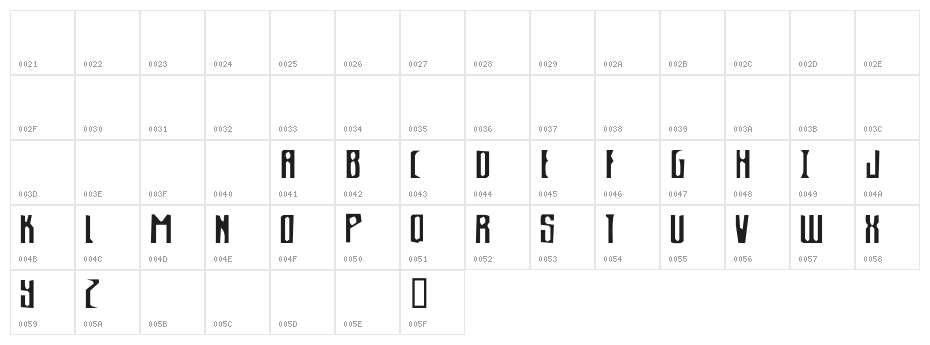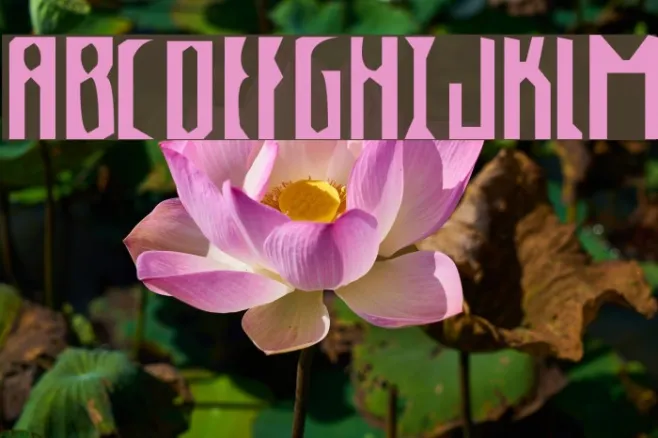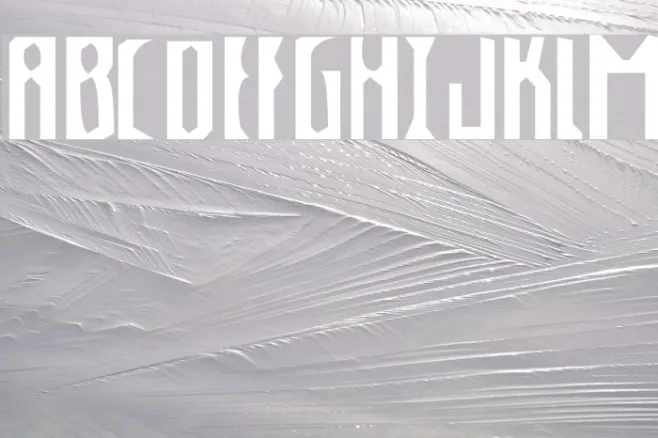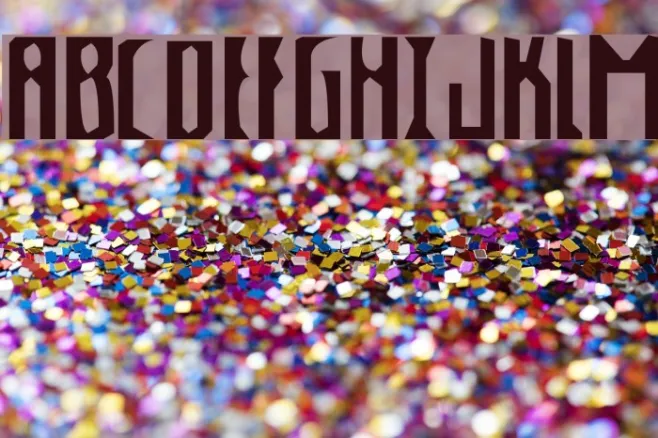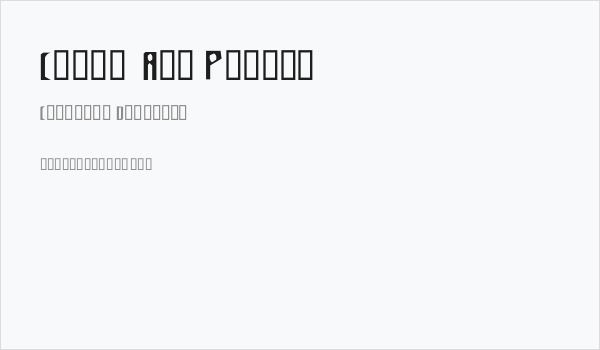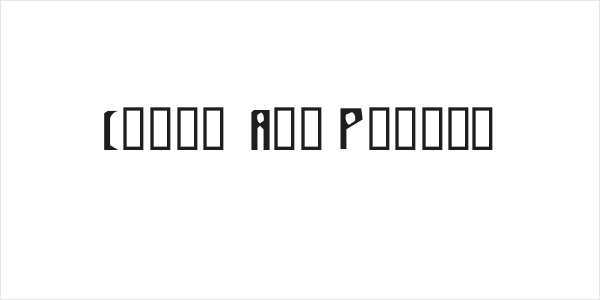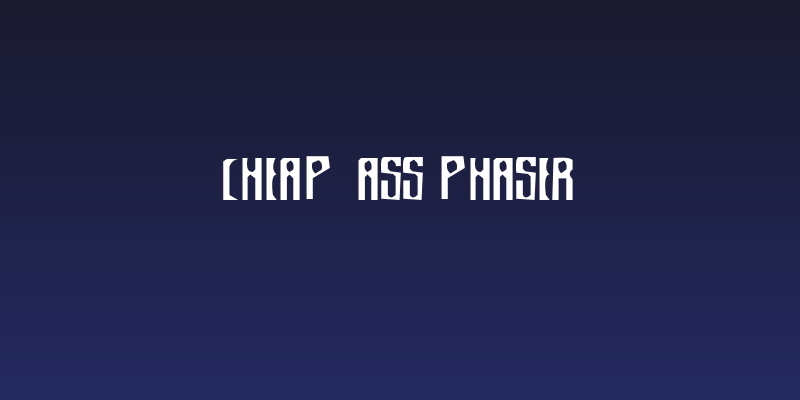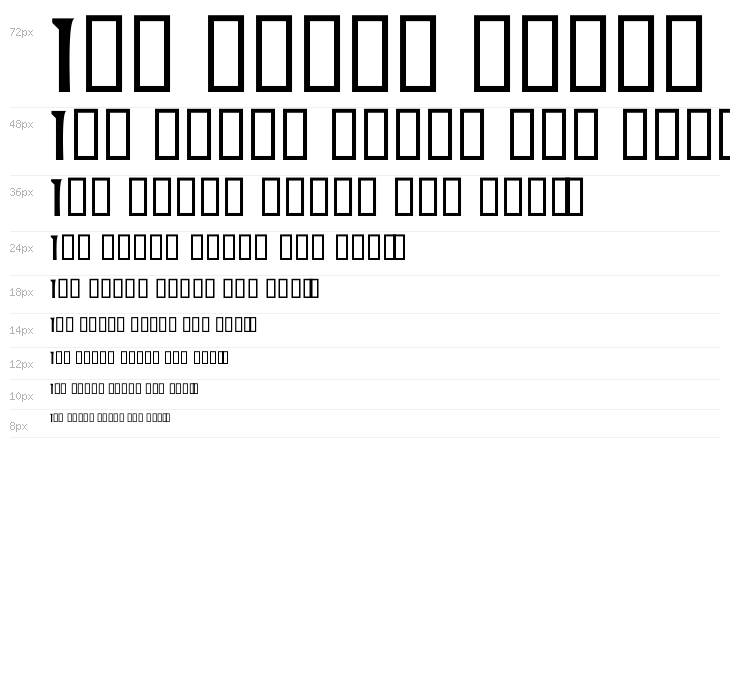
Cheap-Ass Phaser Font
Cheap-Ass Phaser Description
This font features a bold and striking design with sharp, angular edges and a futuristic aesthetic. The uppercase letters are characterized by their geometric shapes and strong vertical lines, creating a sense of movement and energy. The absence of lowercase letters and numbers emphasizes its decorative nature, making it ideal for attention-grabbing headlines and titles. The unique style of each character adds a dynamic and edgy feel, suitable for projects that require a modern and unconventional look.
| Overall Style | Futuristic, Edgy |
| Proposed Projects | Ideal for sci-fi themed posters, video game titles, and modern branding projects. |